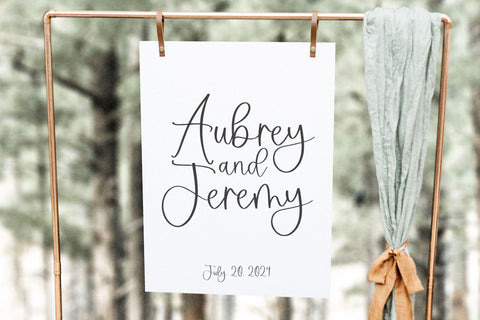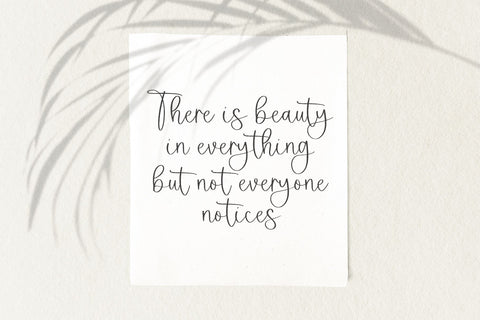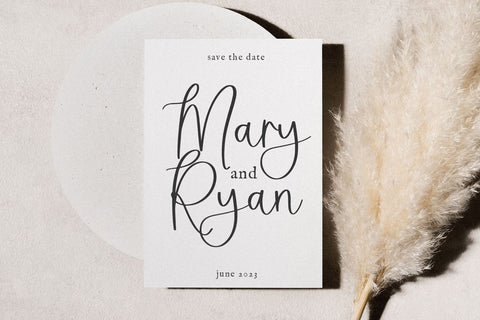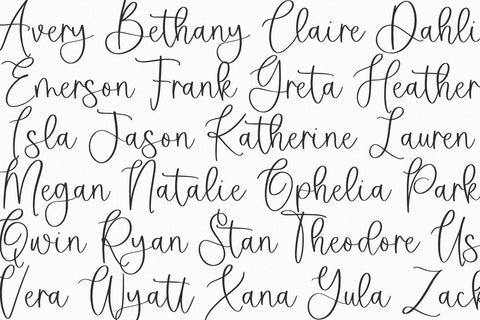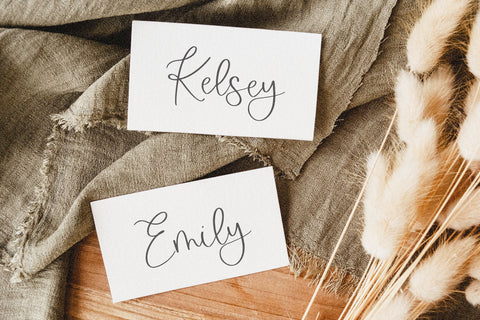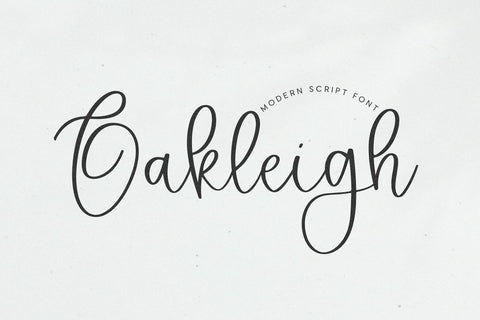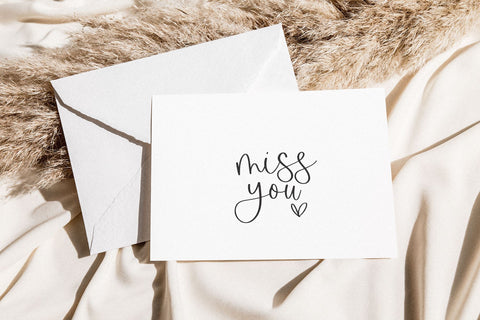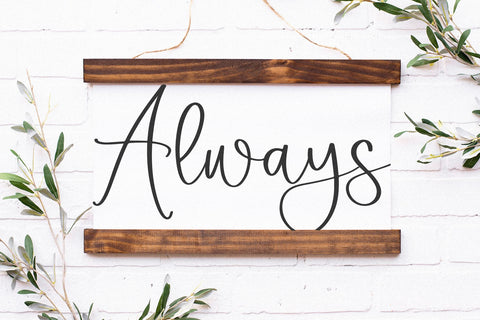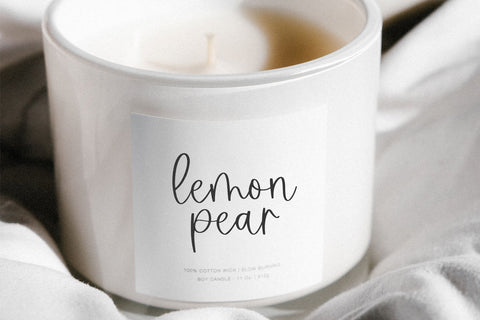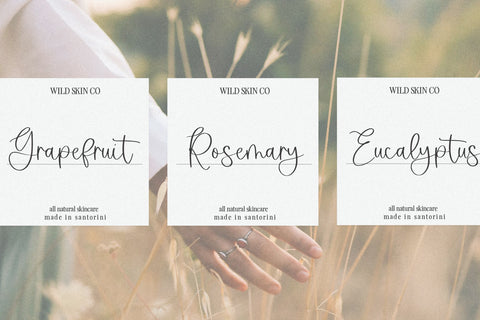
Oakleigh - Modern Script Font
Oakleigh is a modern script font.
This font is perfect for farmhouse designs, svg designs, wedding decor, shirts, logos, mugs and more!